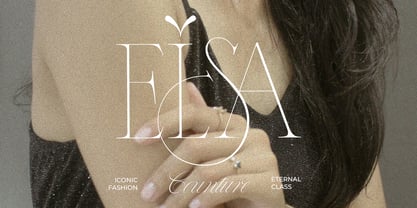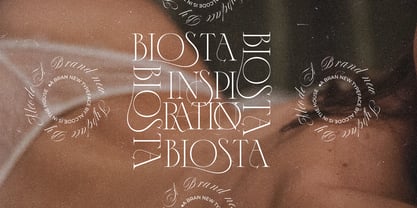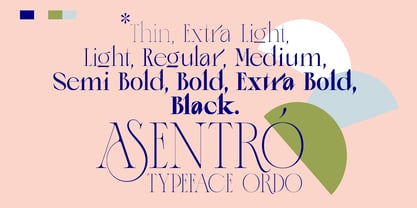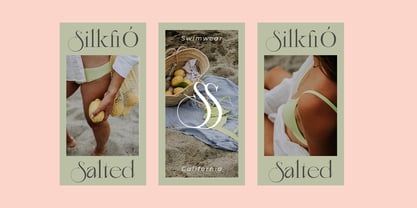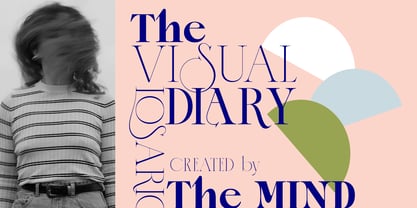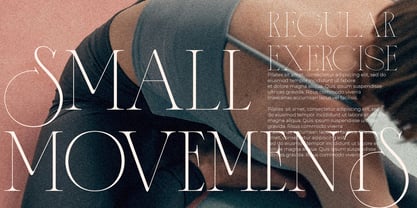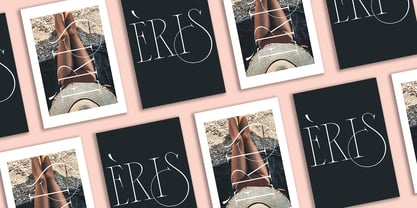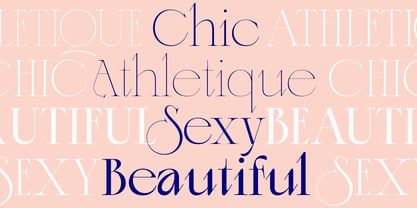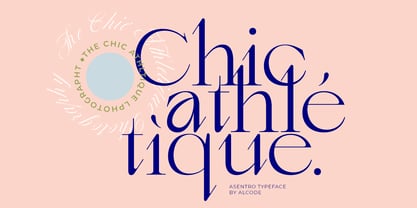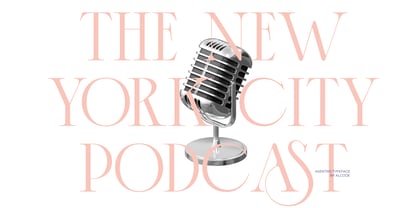
Asentro
by Alcode
The Asentro Font Family was designed by Sukjana Almunandar and published by Alcode. Asentro contains 9 styles and family package options. More about this family
The Asentro Family is a modern and unique serif display font, with interesting ligatures and special characters to experiment with. This clearly makes this typeface suitable for all design projects and is perfect for combining with script or handmade fonts, headlines, posters, packaging, t-shirts, postcards, invitations, wedding signs, painted signs, signage, and much more. Try Asentro, enjoy the richness of OpenType features and let her fun and elegant excitement make you happy and enhance your creativity! You can use this font very easily. • Multilingual Support, Interesting ligatures and Special Characters Best pairing with Bastra Script Pro ➡️ www.myfonts.com/collections/bustra-script-pro-font-alcode Thank you for purchases.!
Designers: Sukjana Almunandar
Foundry: Alcode